street font: The Artistic Expression of Urban Culture
Street font is a form of typographic expression that originated from the streets of the urban environment. It is a unique and diverse style that has gained popularity over the years, particularly in the world of graphic design and street art. Street fonts are characterized by their bold and striking features, which are often inspired by the raw and gritty vibes of the city.
The creative use of typography in street art has been around for decades, but it was only in recent years that street fonts gained recognition as a legitimate art form. This is due in part to the increasing acceptance of street art as a viable form of artistic expression and the growing interest in urban culture.
Street fonts can take on many forms, from graffiti tags to stenciled letters. They can be found on walls, sidewalks, and other urban surfaces. What makes street fonts unique is the way they incorporate the surrounding environment into their design. The typography is often influenced by the textures, colors, and shapes of the city itself.
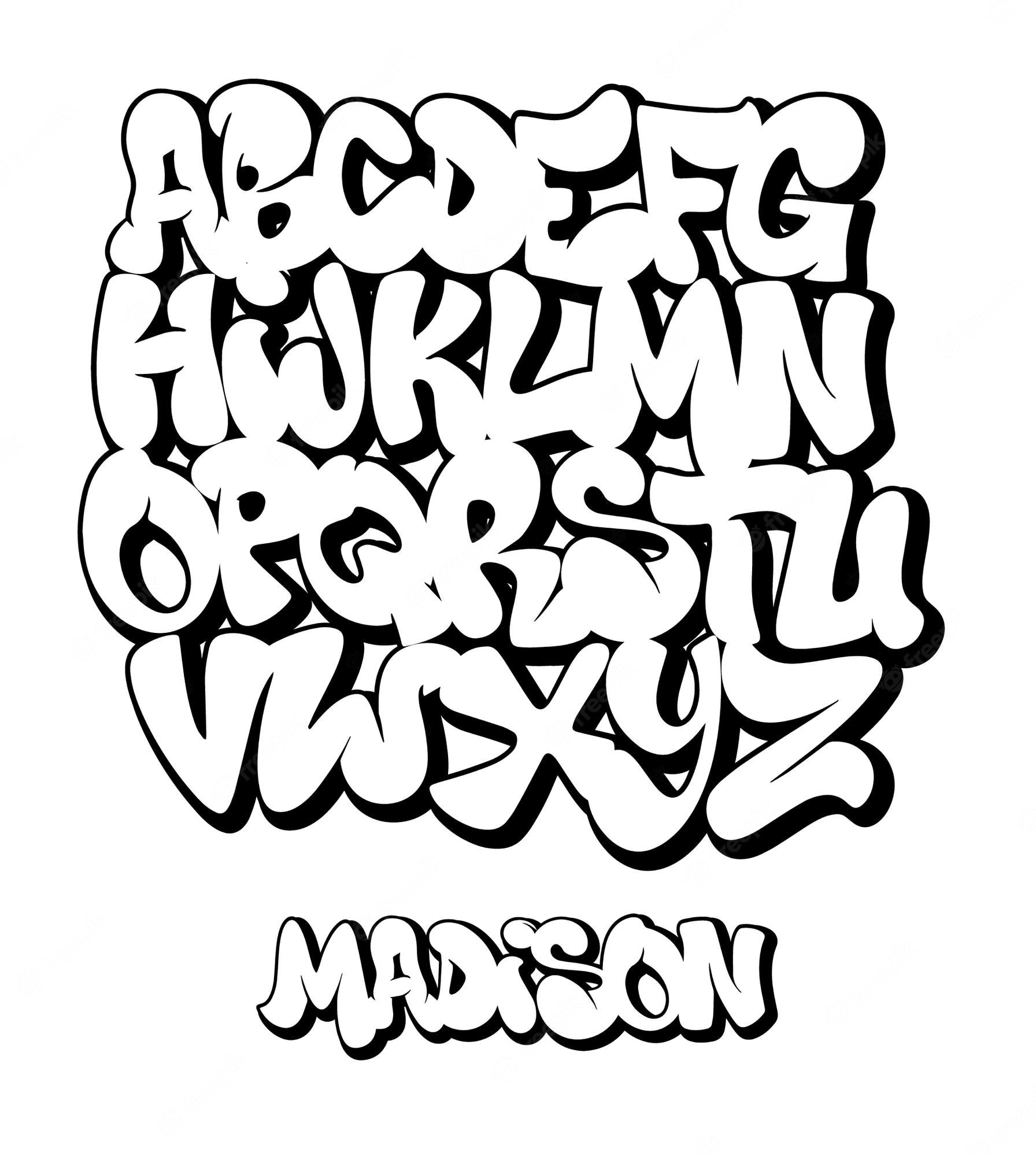
One of the most popular street fonts is the graffiti tag. Graffiti tags are the signature or moniker of the artist, usually written in a stylized way that makes it stand out. Tags can be found all over the city, from alleyways to the sides of buildings. They are often created with spray paint, markers, or other tools that allow the artist to leave their mark quickly and efficiently.
Another popular street font is the stencil. Stencils are created by cutting out a design on a piece of cardboard, plastic, or other material, and then using spray paint or a marker to transfer the design onto a surface. Stencils can be used to create intricate patterns or simple words and phrases.
Street fonts have become a popular form of branding for many companies, particularly those targeting young, urban audiences. The bold and edgy nature of street fonts makes them stand out in a crowded marketplace. Many fashion brands, for example, have incorporated street fonts into their designs, giving them a unique and trendy look.
In conclusion, street font is a form of artistic expression that has become an integral part of urban culture. It is a unique and diverse style that has gained recognition in the art and design world. Street fonts incorporate the raw and gritty vibes of the city into their design, making them stand out and appeal to a young, urban audience.